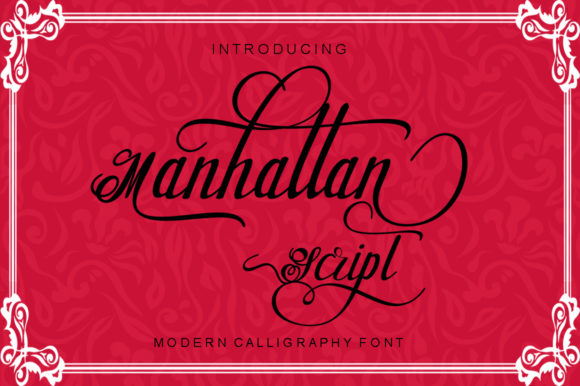
Introducing Manhattan Script Font, a breathtaking script font that will leave you spellbound with its unique and organic flair. This masterpiece, designed by Shape Studio, is crafted to captivate and elevate your creative projects with its bold swashes and elegant curves. Immerse yourself in the world of Manhattan Script and unveil the limitless possibilities it holds.
With Manhattan Script, your designs will dance with a captivating rhythm. Its enchanting swashes add a touch of playfulness and intrigue, while its elegant curves exude a timeless charm. Whether you're designing logos, branding materials, invitations, or social media graphics, Manhattan Script will add a touch of sophistication and artistry that will leave a lasting impression.
This font is more than just a collection of characters; it's an expression of your creativity and passion. Its versatility knows no bounds, making it the perfect choice for a wide range of projects. From whimsical invitations to sophisticated logos, Manhattan Script effortlessly adapts to your vision, transforming your words into works of art.
Using Manhattan Script is like embarking on a creative journey, where every letter becomes a brushstroke, and every word a masterpiece. Its organic twist adds a touch of authenticity and warmth, making your designs resonate with your audience on a deeper level. Indulge in the beauty of Manhattan Script and let your imagination soar.